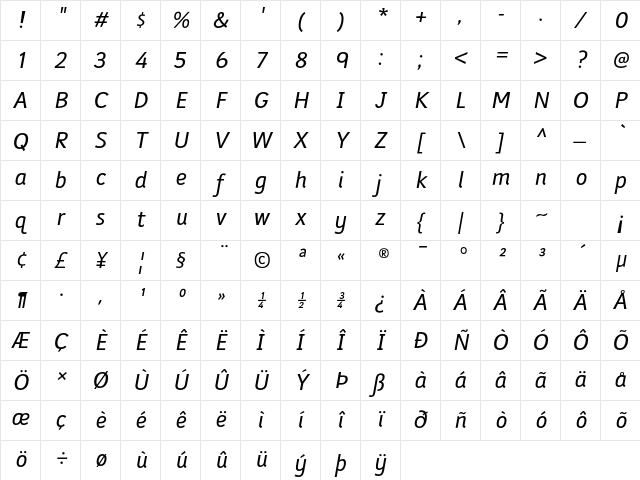
Folder is a composed and adaptable typeface that performs quietly and consistently across a wide range of design contexts. The slanted form adds forward momentum and visual energy.
Pro Tip: Use Folder for emphasis, pull quotes, and subheadings where its slanted energy can add rhythm to the layout.